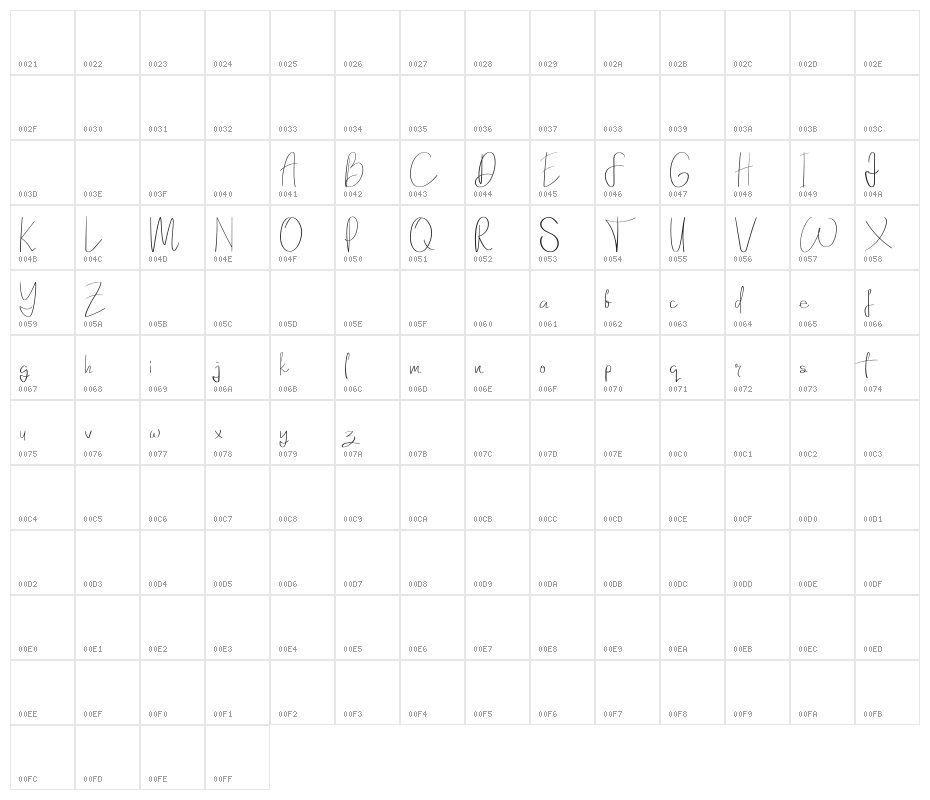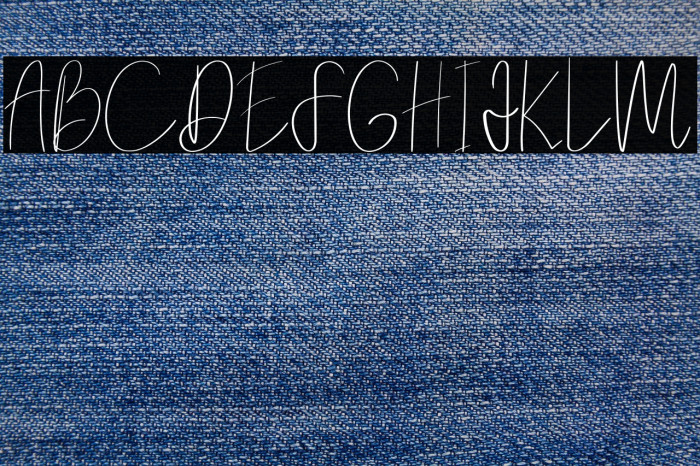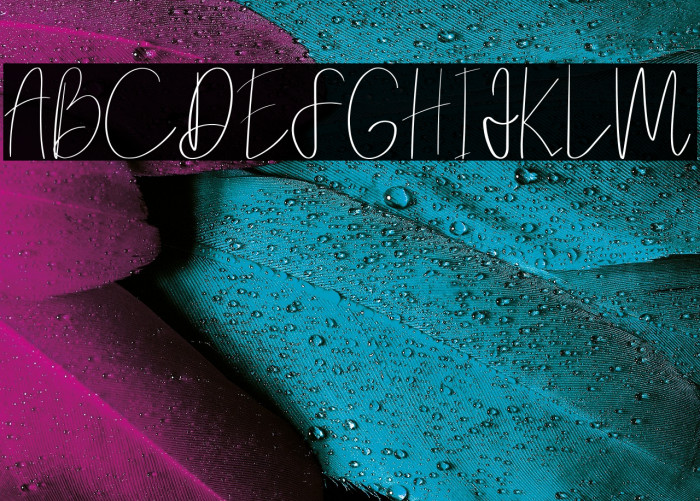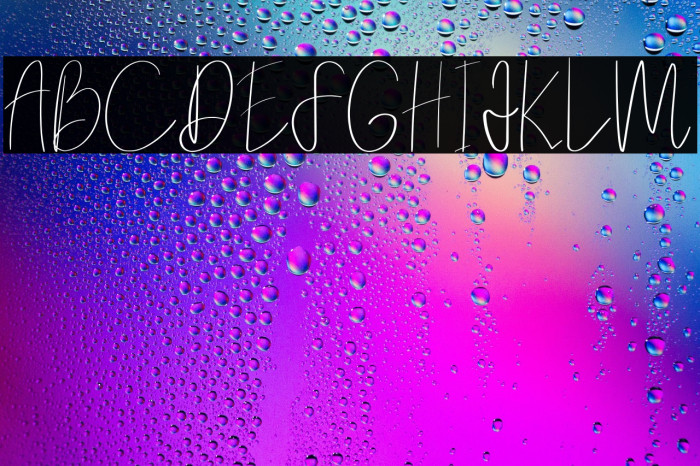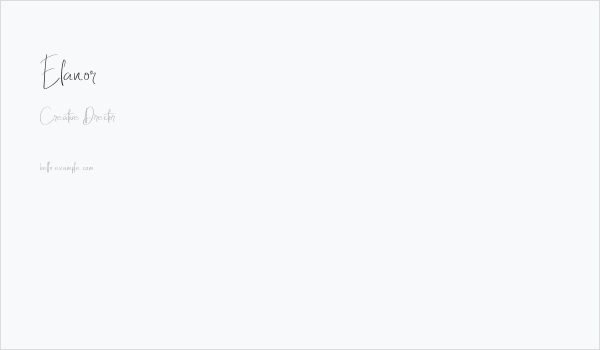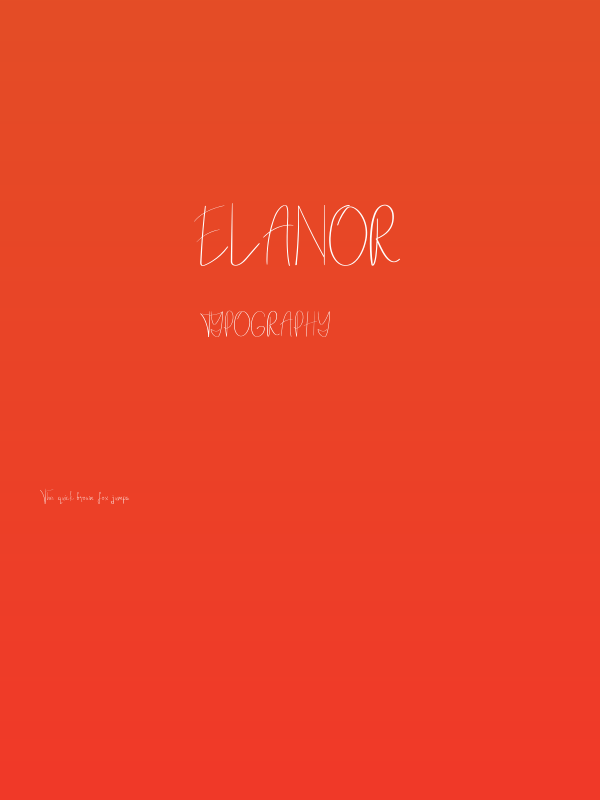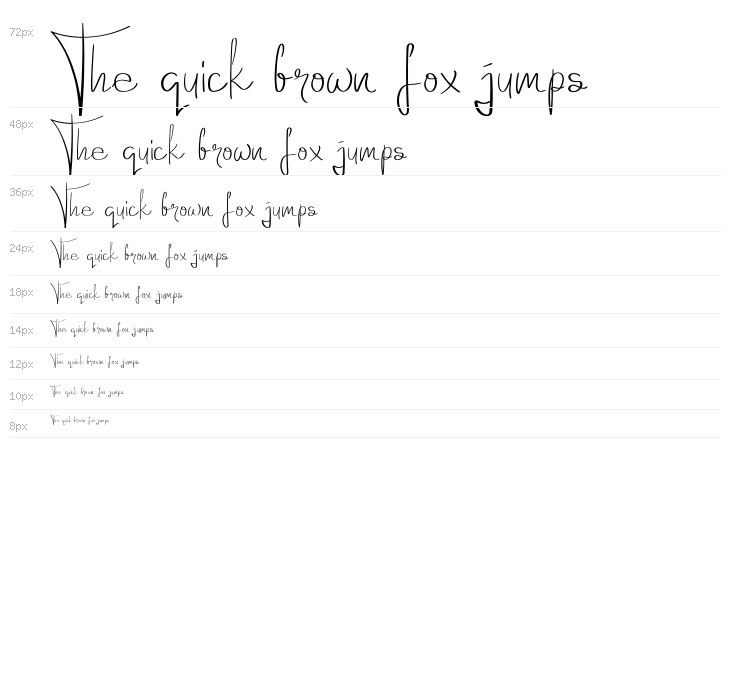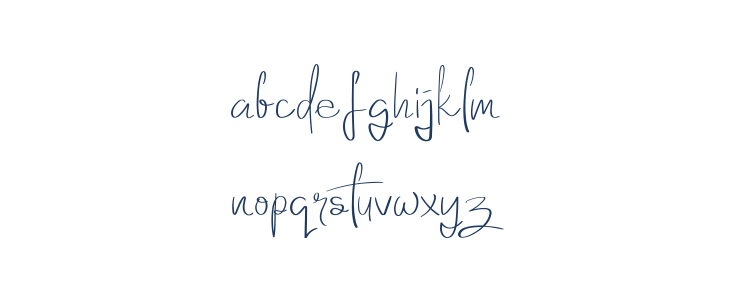
Elanor Font
Elanor Description
This font features a whimsical and artistic style, characterized by its flowing, handwritten appearance. The uppercase letters exhibit a playful and dynamic form, with varying stroke widths that add a sense of movement and energy. The lowercase letters maintain a consistent style, complementing the uppercase with their own unique flair. The numerals and special characters are crafted with the same attention to detail, ensuring a cohesive look across all elements. This font's distinctive personality makes it ideal for creative projects that require a touch of elegance and individuality.